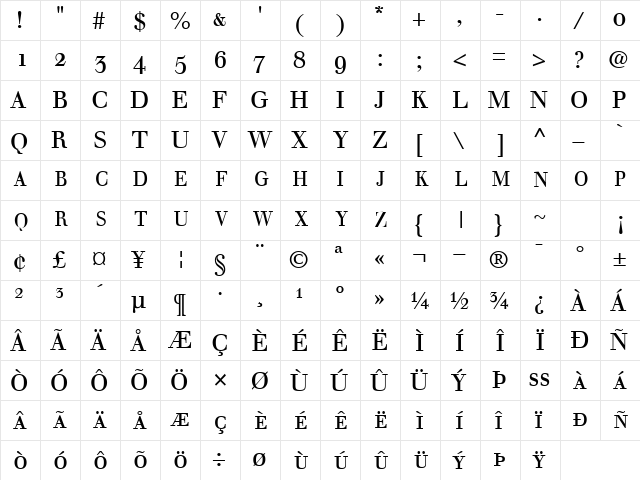
WalbaumOSSCapSSK Regular
Design Context for WalbaumOSSCapSSK Typeface
WalbaumOSSCapSSK takes a measured approach to typography — its balanced proportions and neutral character make it a reliable workhorse for both digital and print work.